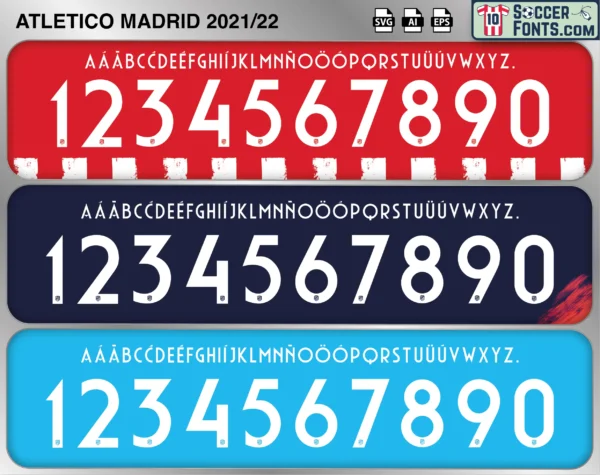
Atletico Madrid 2021-22 Font
The Atletico Madrid 2021-22 font is an editable soccer jersey lettering design in vector format inspired by the Atletico Madrid kit style used during the 2021-22 football season. This football font artwork is prepared for football shirt recreations, custom jersey projects, football kit mockups and sports graphic design workflows.
The 2021-22 season saw Atletico Madrid defend its La Liga title following the success of the previous campaign. Diego Simeone continued to rely on a squad featuring Luis Suárez, João Félix, Koke, Marcos Llorente, Yannick Carrasco, Antoine Griezmann, Jan Oblak and José María Giménez. The return of Griezmann brought added experience and familiarity to the squad, while João Félix continued his development as one of the club’s most talented attacking players. Atletico faced strong competition in both domestic and European football while attempting to maintain the standards established during the title-winning season.
The Atletico Madrid 2021-22 font became associated with a campaign in which Atletico remained highly competitive despite facing increasingly strong rivals. The club finished inside the top positions in La Liga and secured qualification for the UEFA Champions League, extending its consistency among Spain’s leading teams. In Europe, Atletico reached the quarter-finals of the UEFA Champions League and produced a notable Round of 16 victory against Manchester United before being eliminated by Manchester City. Atletico Madrid shirts from the 2021-22 season remain popular among football shirt enthusiasts because of their connection to the post-title era, Griezmann’s return and another strong Champions League run under Simeone. The Atletico Madrid 2021-22 font reflects a season that demonstrated the club’s ability to remain competitive at the highest level of European football.